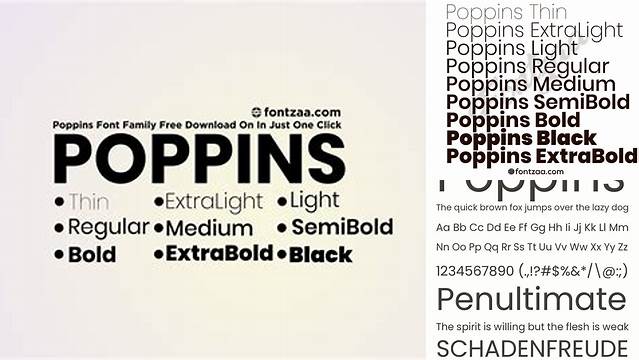
Poppins Font Import: The Ultimate Guide
Hey guys! Ever wondered how to seamlessly integrate the Poppins font into your web projects? Well, look no further! This comprehensive guide will walk you through the entire process of poppins google fonts import, ensuring your websites look stunning and load quickly. We'll dive into various methods, from the classic <link> tag to more modern approaches using CSS and JavaScript. Plus, we'll cover essential optimization tips to keep your website's performance top-notch. So, let's get started and make your websites shine with the beautiful and versatile Poppins font!
1. Understanding the Poppins Font
Before we jump into the poppins google fonts import, let's quickly talk about why Poppins is such a popular choice. This geometric sans-serif typeface is known for its clean lines, excellent readability, and versatility. It's available in a wide range of weights and styles, making it suitable for everything from headlines to body text. Its modern and friendly aesthetic makes it a great choice for various projects, including websites, apps, and print materials. The fact that it's freely available on Google Fonts is a huge bonus! This means you can use it in your projects without worrying about licensing fees or restrictions. It's designed to look great at both large and small sizes, ensuring a consistent and professional look across all devices. Additionally, its neutrality makes it blend well with different design styles, making it a great font for almost any project you have. You'll find it's a great choice for user interfaces, branding, and everything in between! So, yeah, Poppins is an awesome font, and you're in for a treat!
7. Choosing the Right Poppins Weights and Styles
One of the most important things for poppins google fonts import is selecting the right Poppins weights and styles for your project. Don't load everything! Google Fonts offers a wide range of weights and styles, from thin to extra-bold, and italics. Choosing only what you need is the best way to speed up loading times. Identify the weights you will actually use. For example, if you only plan to use the regular and bold styles, there's no need to include the thin or extra-bold variants. In Google Fonts, you can choose specific weights when generating the <link> tag or @import rule. This ensures that only the necessary font files are downloaded. Using CSS, you can apply these weights using the font-weight and font-style properties. For example: h1 { font-weight: 700; } p { font-weight: 400; font-style: italic; }. By carefully selecting your font weights and styles, you can keep your website's loading times down and enhance the overall user experience.
8. Utilizing the preload Attribute for Faster Loading
The preload attribute is a super useful tool for optimizing your poppins google fonts import and speeding up the font loading process. It tells the browser to start downloading the font files as early as possible, even before the CSS is fully parsed. This can significantly reduce the time it takes for the font to become available. To use the preload attribute, add rel="preload" to your <link> tag in the <head> section of your HTML. You'll also need to specify the as="font" attribute to tell the browser that you're preloading a font. The code will look something like this: <link rel="preload" href="https://fonts.gstatic.com/s/poppins/v20/pxiEyp8kv8JHgLBm1U_Z1XLg.woff2" as="font" type="font/woff2" crossorigin>. The href attribute specifies the URL of the font file, and the type attribute tells the browser the file type. The crossorigin attribute is crucial to enable the preloading of fonts served from a different domain, such as Google Fonts. Preloading the font tells the browser to prioritize the download, which is a great trick to know. The font will be ready when it is required. It's a quick win for boosting your website's performance.
9. Understanding the font-display: swap Property
Let's talk about the font-display: swap property, a CSS property that plays a crucial role in optimizing your poppins google fonts import and preventing layout shifts. When a font is loading, the browser needs to decide how to render the text until the font is fully downloaded. font-display: swap tells the browser to immediately display text using a fallback font (such as the default sans-serif). Once Poppins is downloaded, it swaps the fallback font with the intended font. This is crucial for a smooth user experience because it prevents the blank text or the